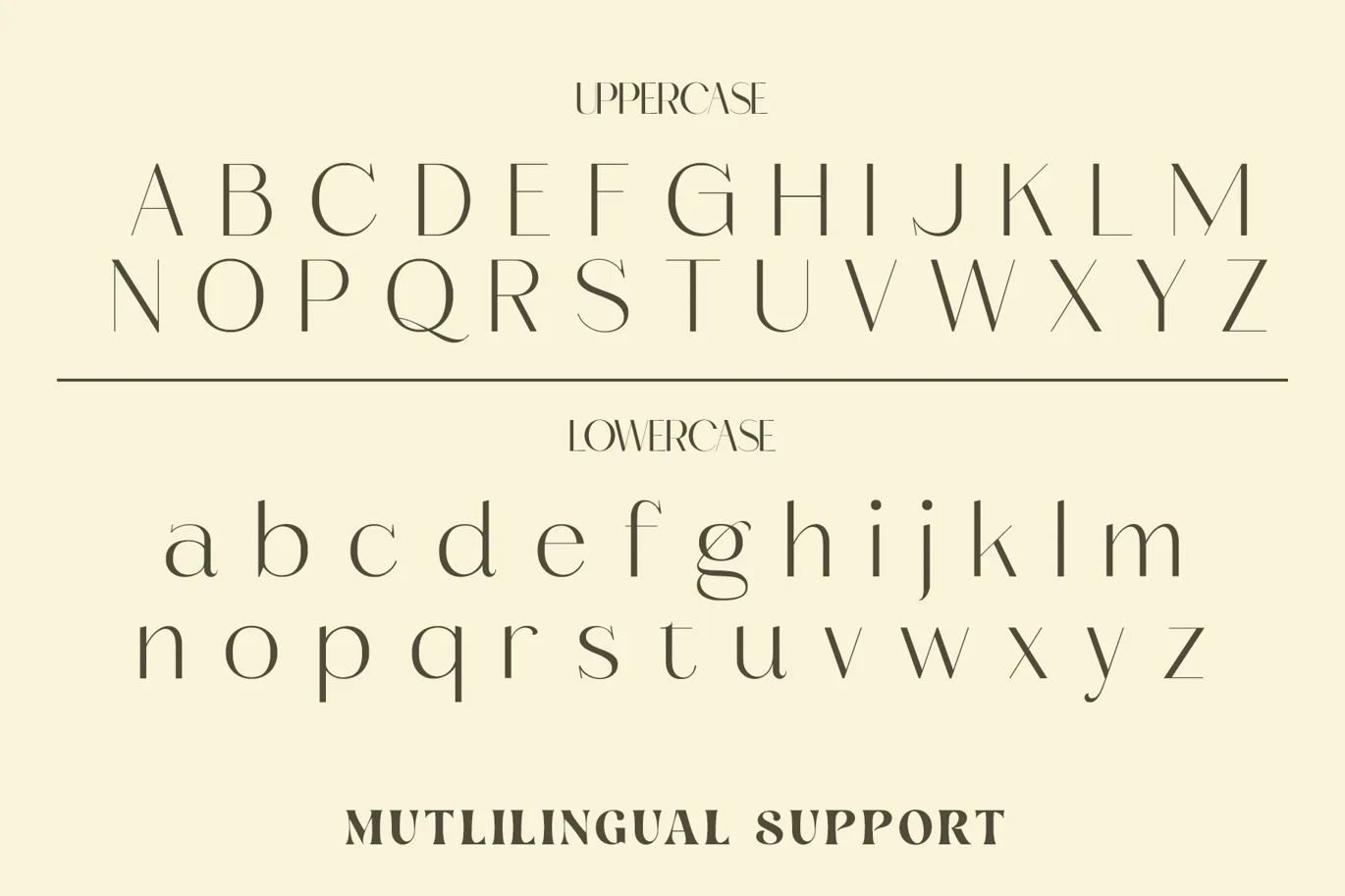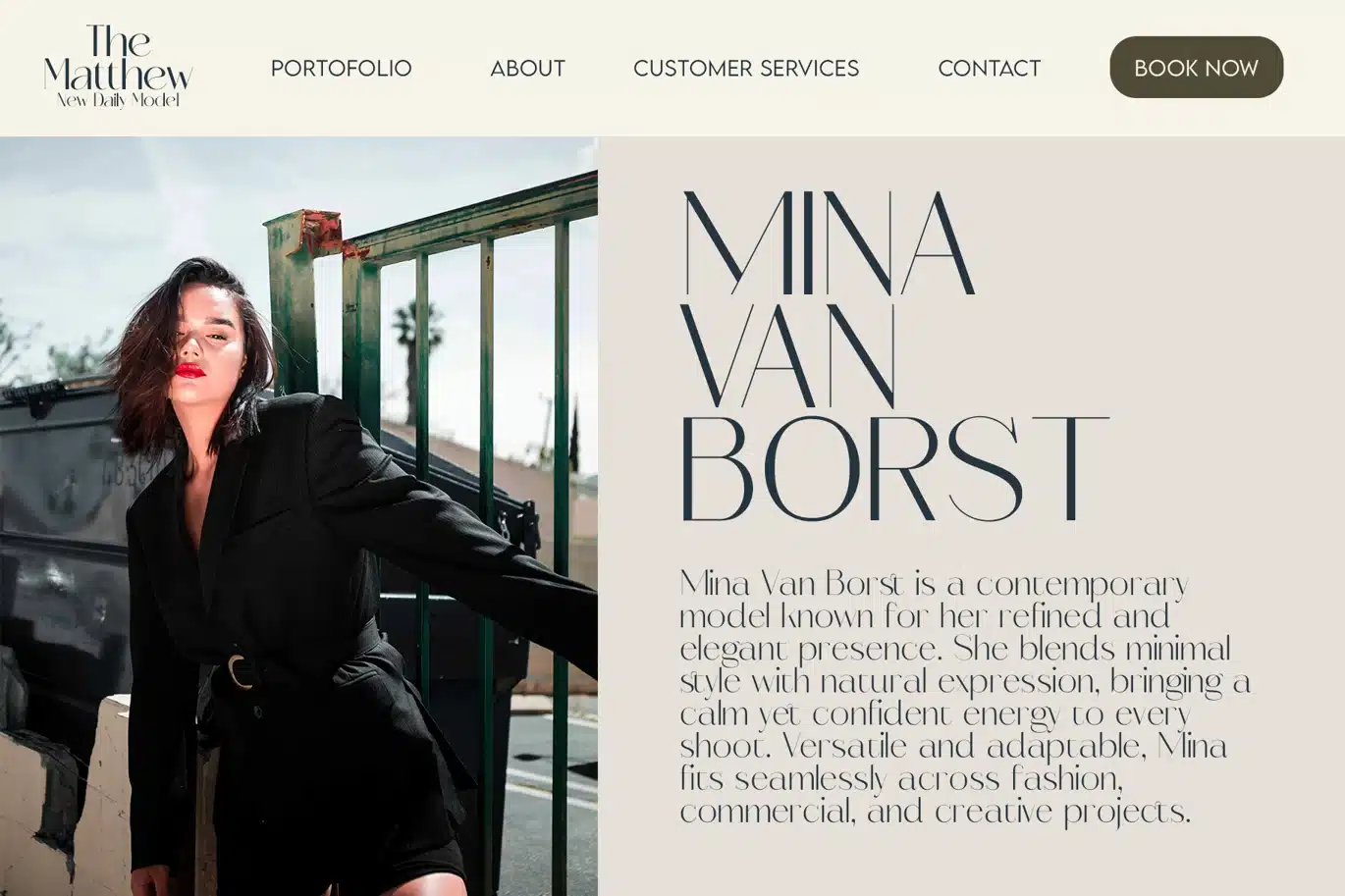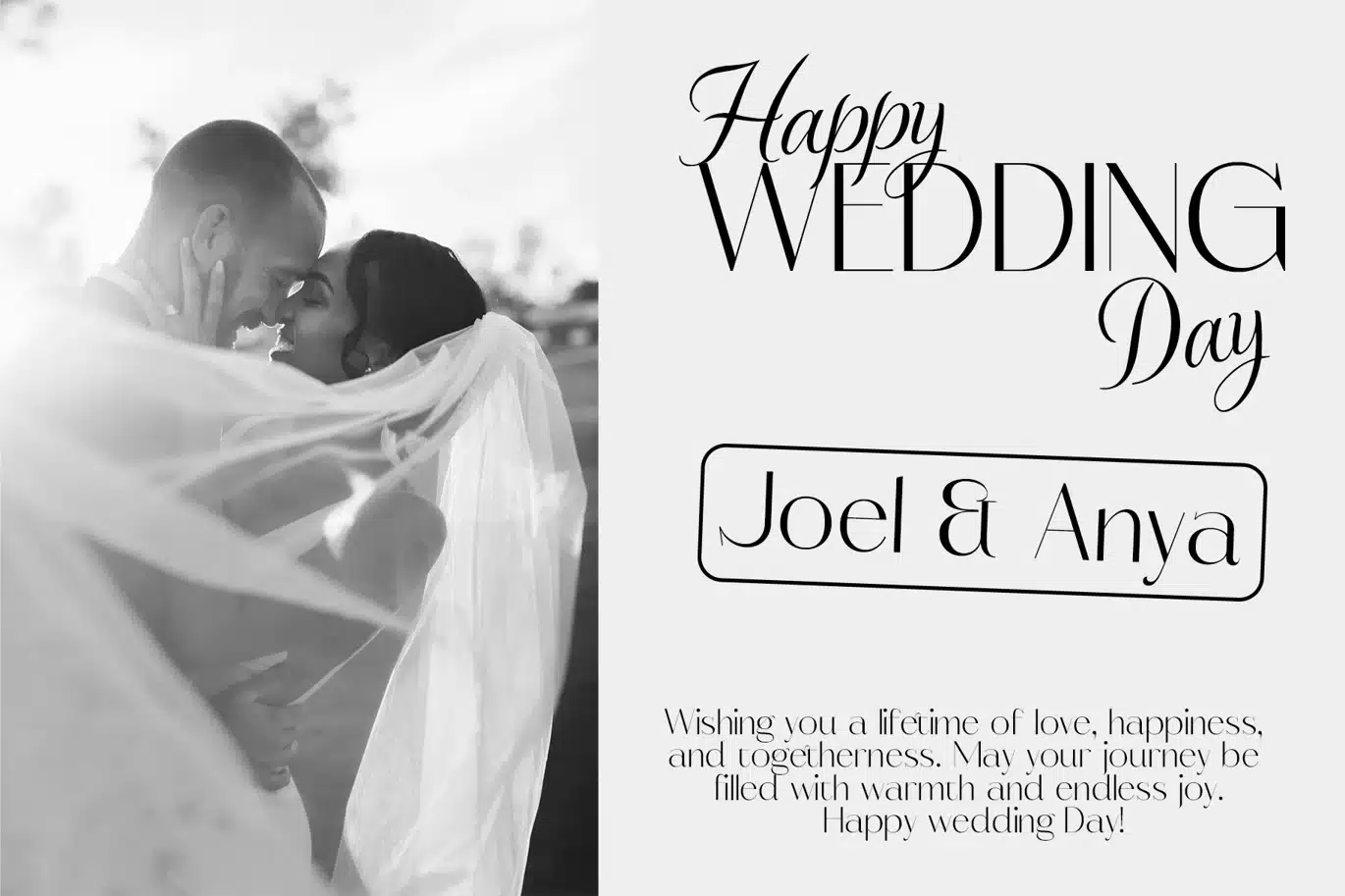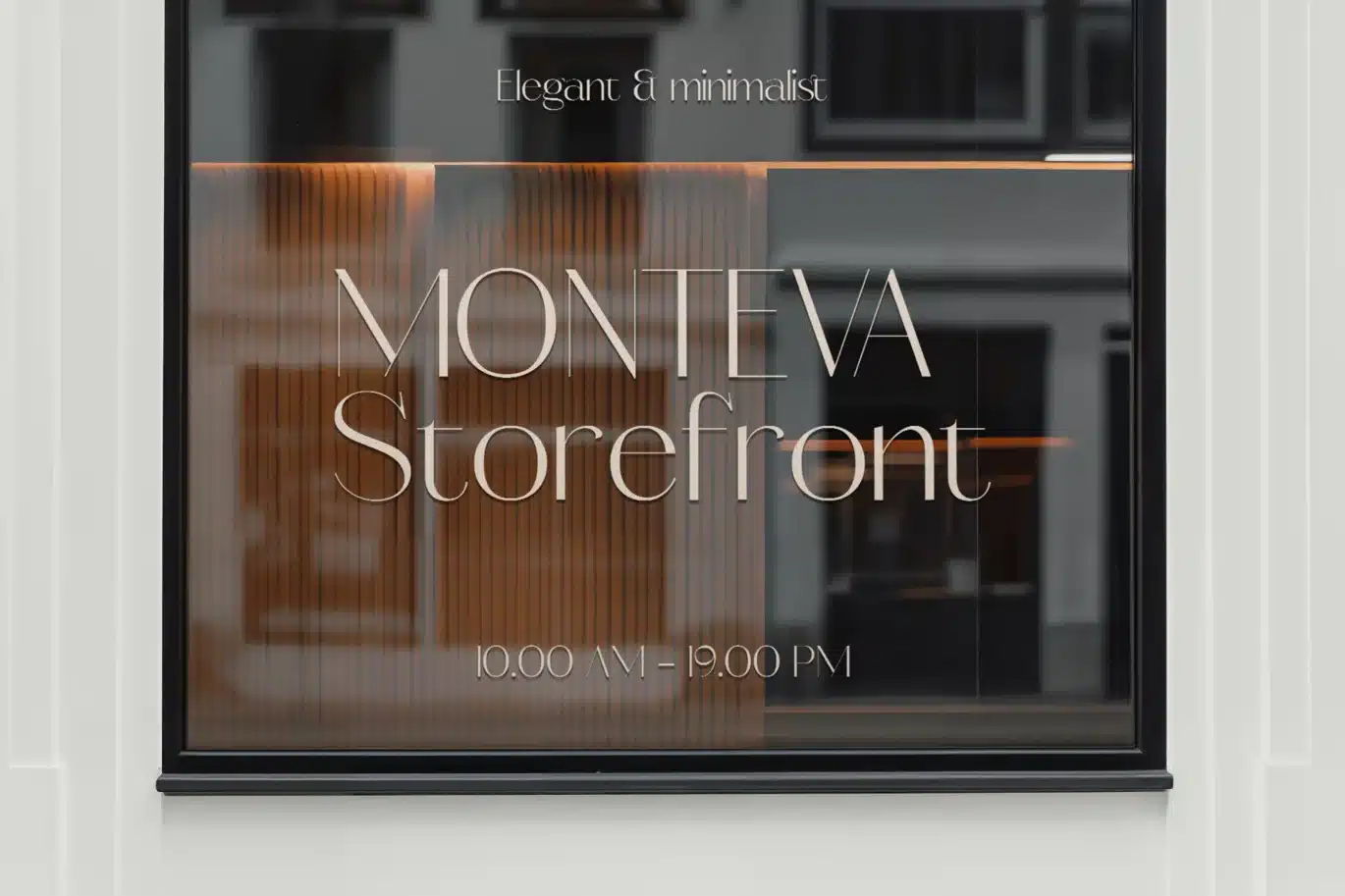
Minimalist Sans Serif Font – Montclair
Montclair is a minimalist sans serif font designed with refined proportions and subtle contrast, creating a clean and elegant visual tone. Its letterforms feature smooth curves and balanced spacing, making it suitable for modern editorial layouts and sophisticated branding.
The font includes ligatures and multilingual support, allowing more expressive typography while maintaining consistency across different languages. Its lightweight appearance gives a sense of clarity and openness, making it effective for both headlines and supporting text.
Montclair works well across a variety of design contexts such as fashion magazines, branding systems, websites, wedding materials, and social media content where a minimal and contemporary aesthetic is needed.
– Uppercase
– Lowercase
– Symbols & Punctuation
– Numeral
– Ligature
– Multilingual Support